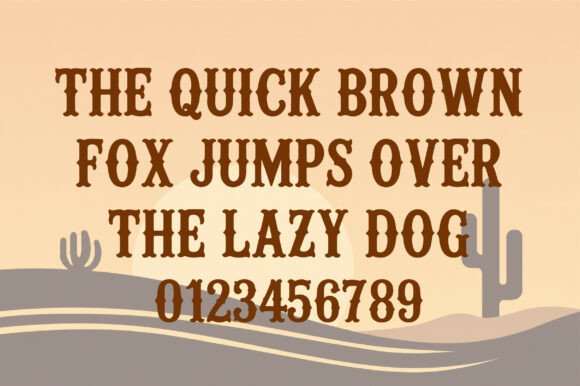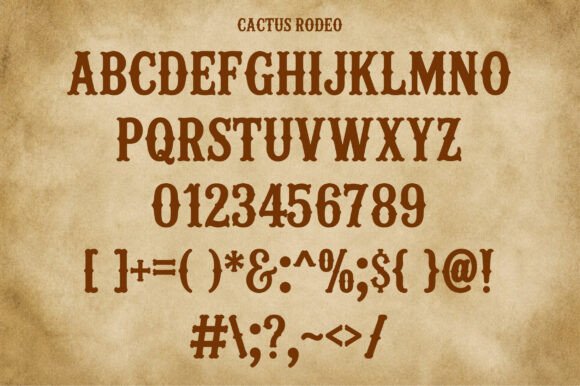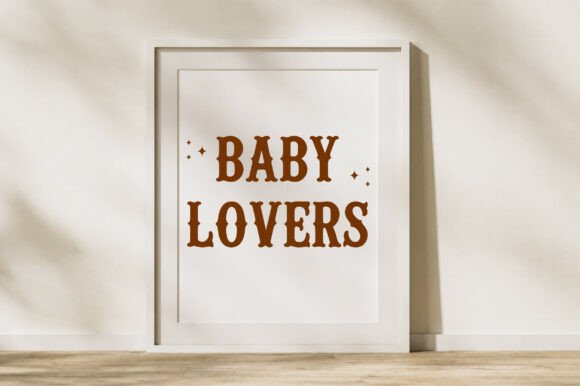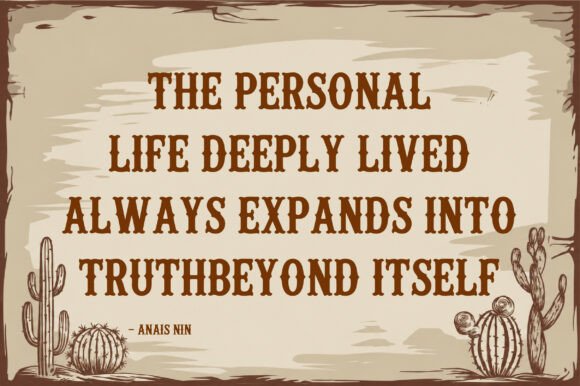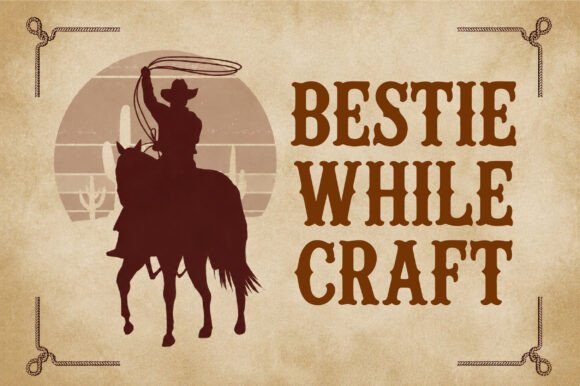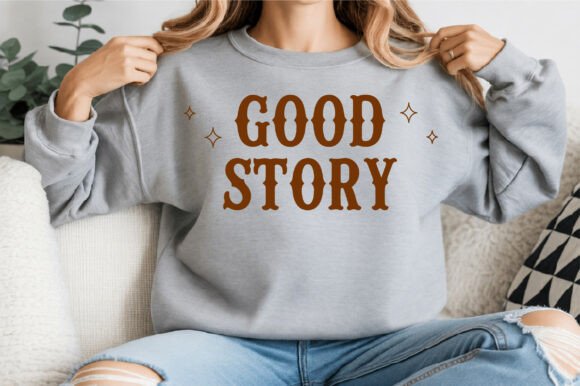
Cactus Rodeo Font: A Bold Western Display Font for Your Creative Projects
Are you looking for a font that captures the essence of the wild west? Do you want to add a touch of rustic charm to your designs? Look no further than the Cactus Rodeo Font, a bold western display font inspired by vintage cowboy posters and desert rodeo vibes.
What is Cactus Rodeo Font?
Cactus Rodeo is a unique font that combines strong serif curves, playful character shapes, and a retro wild-west style to create a truly authentic western look. This font is perfect for designers and crafters who want to add a touch of the old west to their creations. Whether you’re working on branding, t-shirt designs, logos, posters, packaging, Cricut projects, sublimation, social media graphics, or rustic themed creations, Cactus Rodeo Font is the perfect choice.
Key Features of Cactus Rodeo Font
- Bold Western Style: Cactus Rodeo Font features a bold western style that’s perfect for making a statement. Its strong serif curves and playful character shapes give it a unique and eye-catching look.
- Uppercase Letters, Numbers, and Punctuation Symbols: This font includes uppercase letters, numbers, and stylish punctuation symbols to give your designs an authentic western look.
- Retro Wild-West Style: Cactus Rodeo Font is inspired by vintage cowboy posters and desert rodeo vibes, giving it a retro wild-west style that’s perfect for adding a touch of nostalgia to your designs.
- Modern Vintage Touch: This font combines a unique cowboy aesthetic with a modern vintage touch, making it perfect for creators who want to add a touch of rustic charm to their designs.
Uses for Cactus Rodeo Font
Cactus Rodeo Font is a versatile font that can be used for a variety of creative projects, including:
- Branding: Use Cactus Rodeo Font to create bold and eye-catching branding materials, such as logos, business cards, and letterheads.
- T-Shirt Designs: Add a touch of rustic charm to your t-shirt designs with Cactus Rodeo Font. Perfect for creating unique and eye-catching apparel.
- Logos: Create bold and memorable logos with Cactus Rodeo Font. Perfect for businesses, events, and organizations that want to make a statement.
- Posters: Use Cactus Rodeo Font to create eye-catching posters for events, promotions, and marketing campaigns.
- Packaging: Add a touch of rustic charm to your packaging with Cactus Rodeo Font. Perfect for businesses that want to stand out on store shelves.
- Cricut Projects: Use Cactus Rodeo Font to create unique and eye-catching Cricut projects, such as vinyl decals, iron-on designs, and paper crafts.
- Sublimation: Create bold and vibrant sublimation designs with Cactus Rodeo Font. Perfect for creating custom apparel, mugs, and other products.
- Social Media Graphics: Use Cactus Rodeo Font to create eye-catching social media graphics, such as Facebook posts, Instagram graphics, and Twitter headers.
- Rustic Themed Creations: Add a touch of rustic charm to your creations with Cactus Rodeo Font. Perfect for creating unique and eye-catching designs for rustic themed events, parties, and promotions.
Why Choose Cactus Rodeo Font?
Cactus Rodeo Font is a unique and versatile font that’s perfect for designers and crafters who want to add a touch of rustic charm to their creations. Here are just a few reasons why you should choose Cactus Rodeo Font:
- Unique and Eye-Catching: Cactus Rodeo Font is a bold and eye-catching font that’s sure to make a statement.
- Authentic Western Look: This font features an authentic western look that’s perfect for adding a touch of rustic charm to your designs.
- Modern Vintage Touch: Cactus Rodeo Font combines a unique cowboy aesthetic with a modern vintage touch, making it perfect for creators who want to add a touch of nostalgia to their designs.
| Author | Artisan Vibes |
Cactus Rodeo Font is a bold western display font that’s perfect for designers and crafters who want to add a touch of rustic charm to their creations. With its strong serif curves, playful character shapes, and retro wild-west style, this font is sure to make a statement. Whether you’re working on branding, t-shirt designs, logos, posters, packaging, Cricut projects, sublimation, social media graphics, or rustic themed creations, Cactus Rodeo Font is the perfect choice.